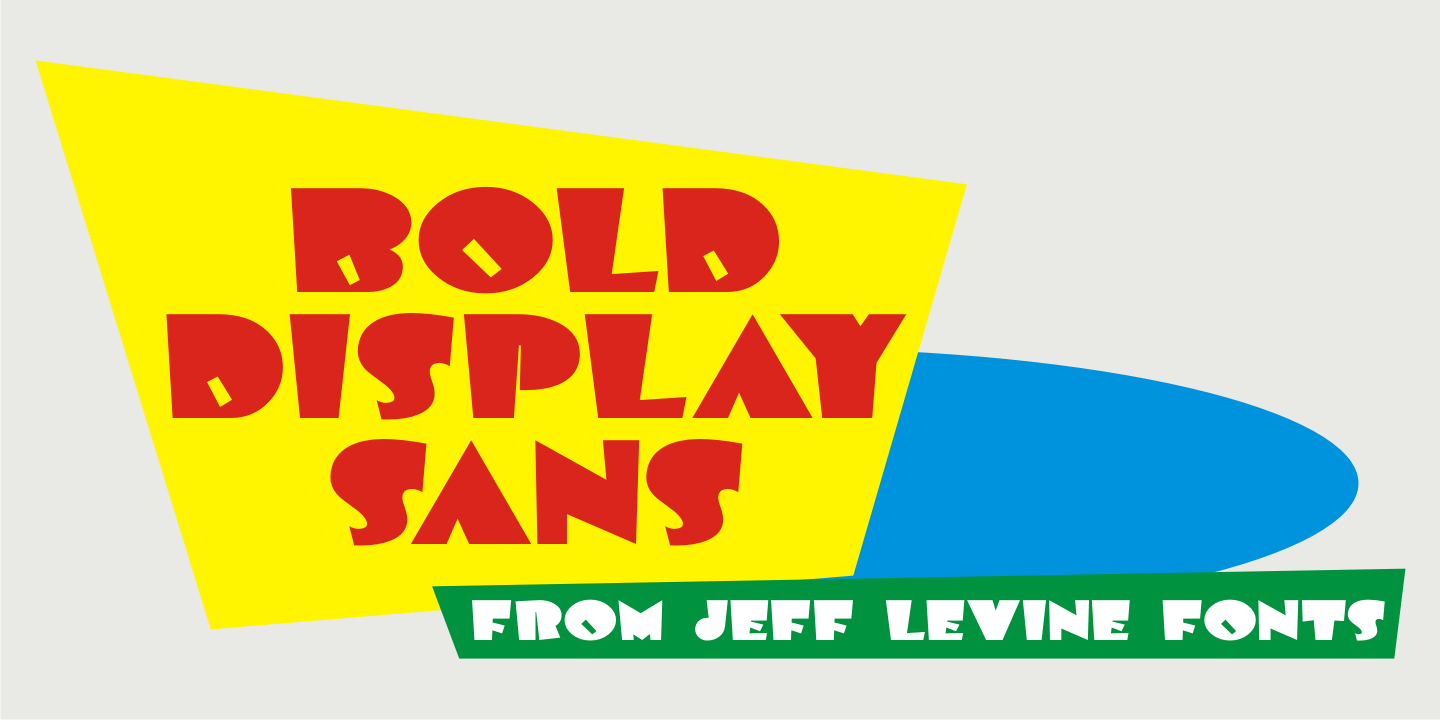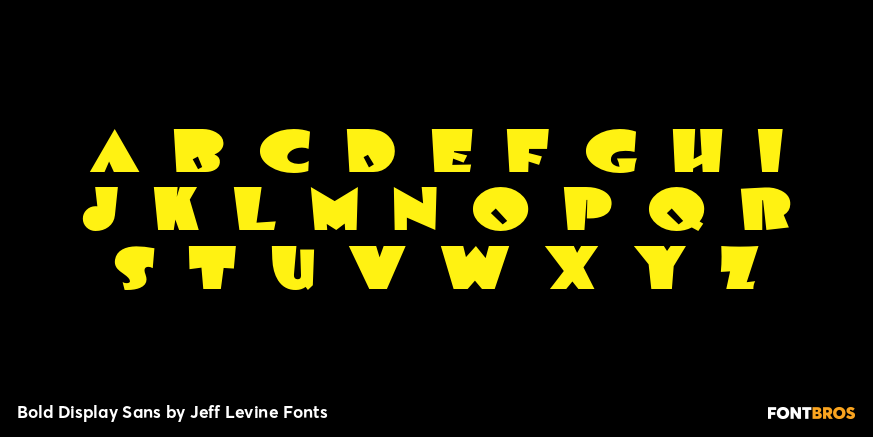
Bold Display Sans
Bold Display Sans JNL is loosely based on one of the classic alphabets found within a Speedball Lettering Textbook of the 1940s; itself called 'Bold Display”. The original featured a stippled texture and inline curves placed in random patterns throughout the letters.
This more simplified, all-caps version is for titling requirements where a strong, yet casual design is needed.
Bold Display Sans by Jeff Levine Fonts